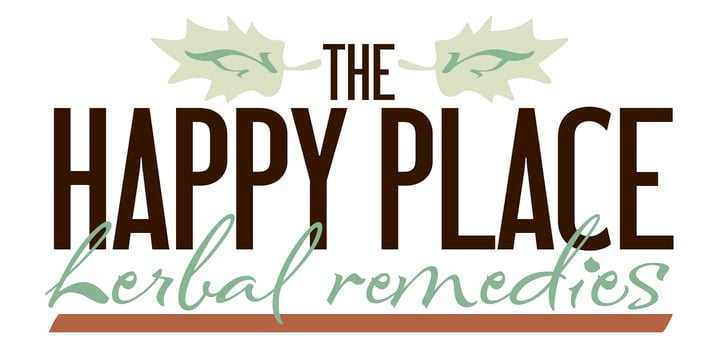
P22 Chai Tea
P22 Chai Tea™ by IHOF
P22 Chai Tea Font Family was designed by Stephen W. Rapp and published by IHOF. P22 Chai Tea contains 3 styles and family package options. More about this family
About P22 Chai Tea Font Family
P22 Chai Tea is unique among brush lettering scripts. Its sweeping strokes and luxurious use of horizontal space lend personality and warmth to any project. Its sturdy letterforms make it ideal for logos, stationery, titling and packaging. The Pro version is stacked with alternative characters and ligatures programmed to substitute contextually in programs that support OpenType features. In addition, Chai Tea Pro contains Central European Language support that also includes many ligatures with accented characters.
Designers: Stephen W. Rapp